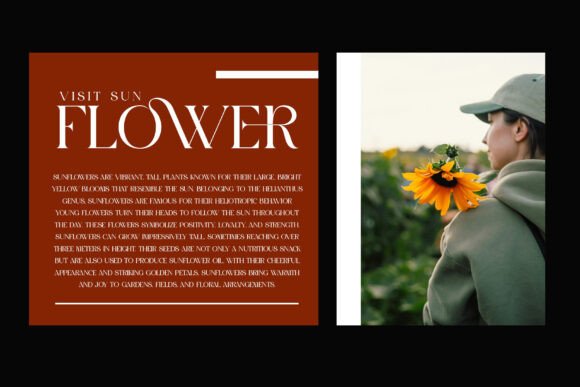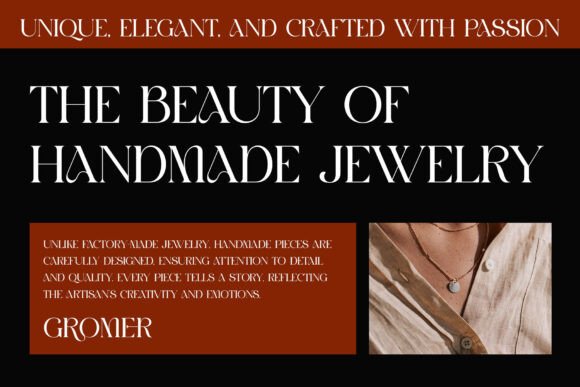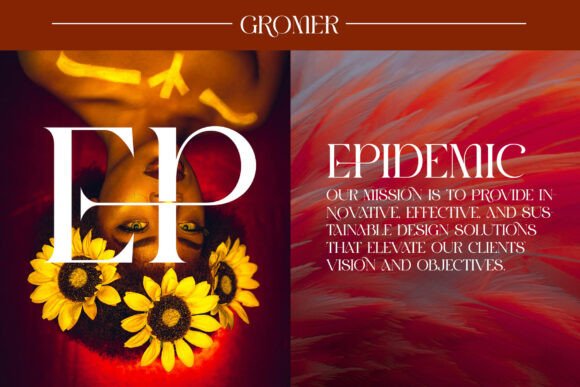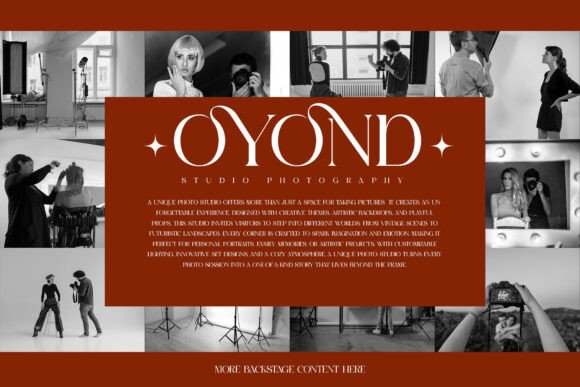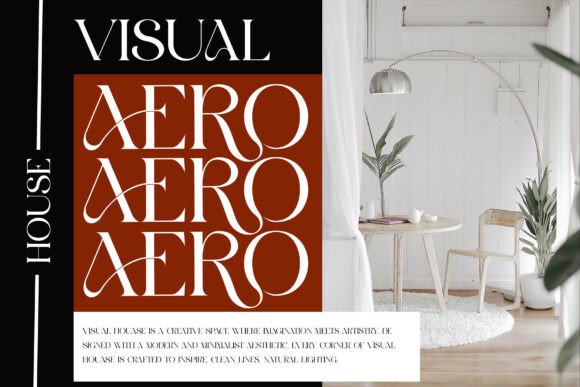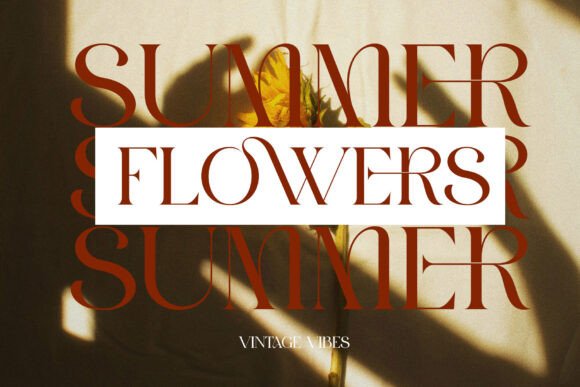
Introduction to Gromer Font
As you sit at your desk, surrounded by the hum of creativity, you’re searching for the perfect font to bring your vision to life. The cursor blinks, and you start to scroll through your design resources, hoping to stumble upon the one that will elevate your project. And then, it happens – you come across Gromer Font, and everything changes. Its elegant ligature serif design transports you to a world of fresh blooms and timeless elegance, making your creative juices flow.
For designers, finding the right font can be a game-changer. It’s the difference between a good design and a great one. That’s why we’re excited to introduce you to the Gromer Font, a high-quality design resource that’s perfect for your next creative project. With its free download and transparent background, you can easily incorporate it into your designs and watch them flourish with style and character.
Whether you’re working on a floral-themed website, a fashion brand, or high-end branding, the Gromer Font is an excellent choice. Its bold yet refined ligatures will add a touch of sophistication and femininity to your designs, making them stand out in the crowd.
Key Features of Gromer Font
- Unique, hand-drawn style with a transparent background, perfect for adding a personal touch.
- Includes a range of glyphs and characters, including international support for various languages.
- Perfect for designers and artists looking for a unique, high-quality design resource to elevate their creative project.
Honest Review: Gromer Font
I recently had the chance to work with the Gromer Font for a creative project, and I must say it’s been a game-changer. This font is a fantastic design resource that can elevate any project.
- High-quality design that’s perfect for professional projects ✨
One of the things I appreciate most about the Gromer Font is its versatility. It’s perfect for creating unique titles, headings, and even body text. Its clean and modern design makes it an excellent choice for a wide range of creative projects.
- May not be suitable for projects requiring a bold or italic font style ⚠️
- Some users may find the font too minimalist ⚠️
Overall, I’m thoroughly impressed with the Gromer Font. Its high-quality design, transparent background option, and free download make it an excellent addition to any designer’s toolkit. While it may not be perfect for every project, it’s certainly a valuable design resource that’s worth exploring.
How to Use Gromer Font
Tips for Getting the Most Out of Gromer Font
For a high-quality design, use Gromer Font with a transparent background to create a clean and modern look. Experiment with different font sizes and styles to add visual interest to your design. Consider pairing Gromer Font with other design elements, such as images and graphics, to create a cohesive and engaging design.
Common Use Cases for Gromer Font
Gromer Font is suitable for a variety of creative projects, including logos, business cards, and social media graphics. Its modern and sleek design makes it an ideal choice for tech-related projects, such as app designs and website headers.